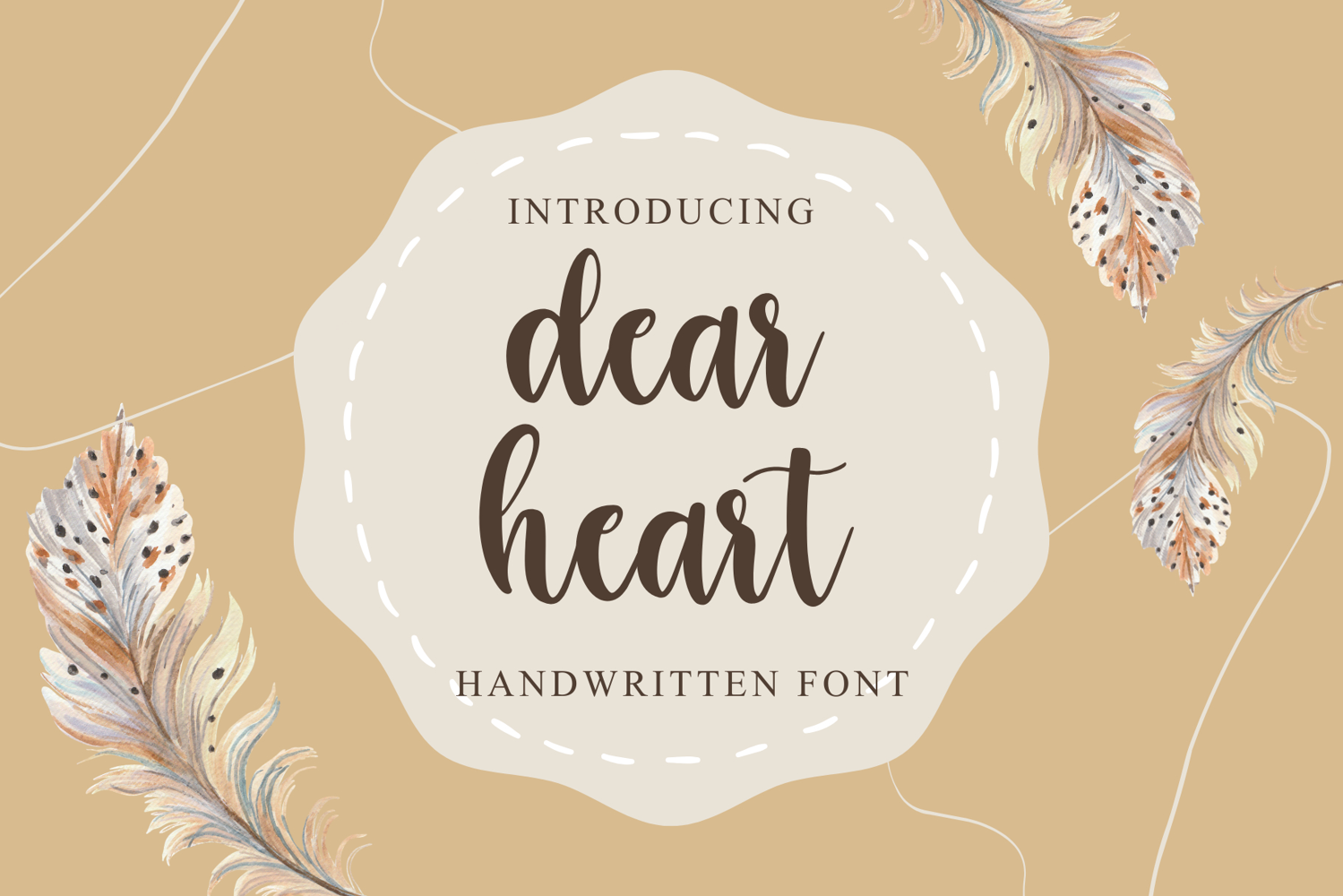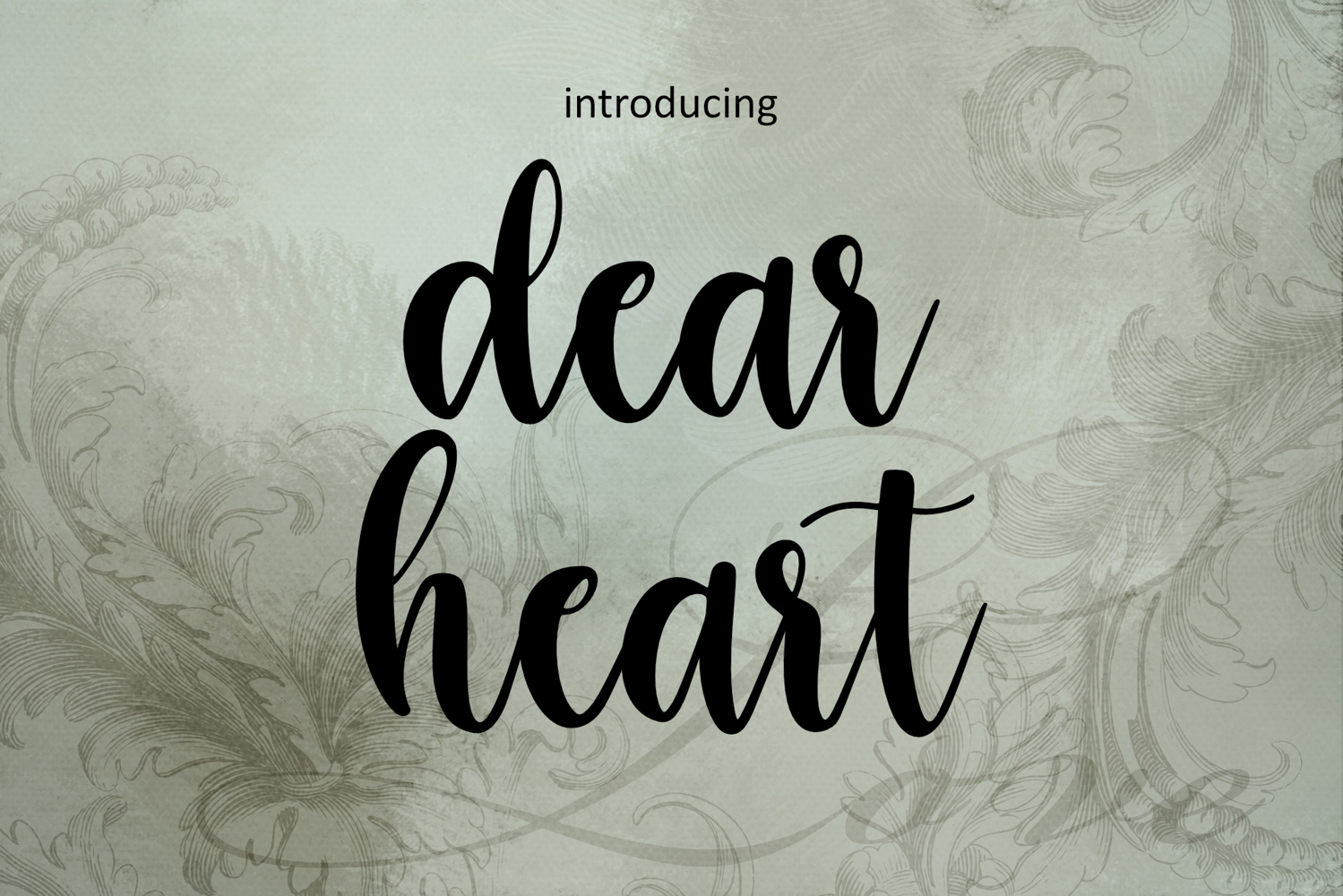
dear heart
Dear Heart is a beautifully flowing handwritten script font designed to bring warmth, charm, to every project. With smooth curves, natural pen-stroke movement, and a soft romantic feel, this font is perfect for branding, invitations, quotes, stationery, logos, packaging, and creative products.
The preview showcases the name Dear Heart in bold, graceful lettering placed over a soft vintage floral background, highlighting the font’s gentle elegance and timeless appeal. Its handwritten style strikes the right balance between modern calligraphy and classic script, making it versatile for special designs.
Let Dear Heart add a touch of sincerity and artistry to your next creation. 💛✨